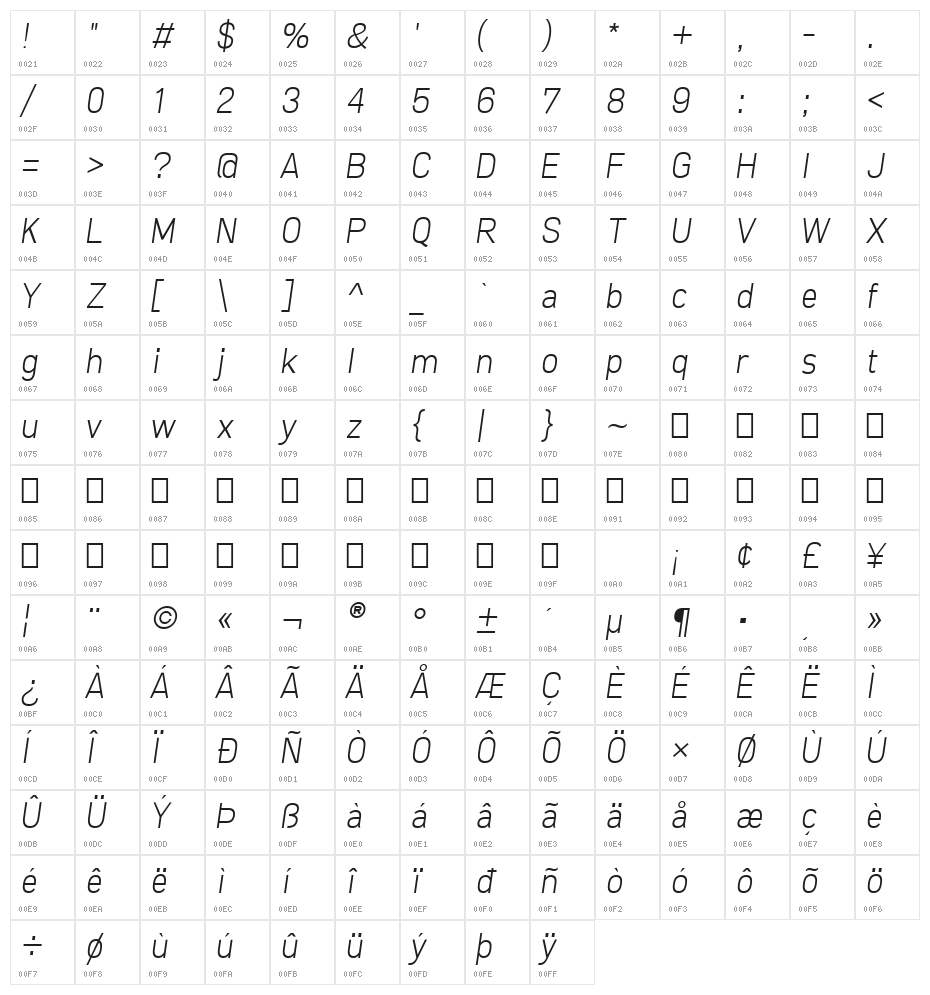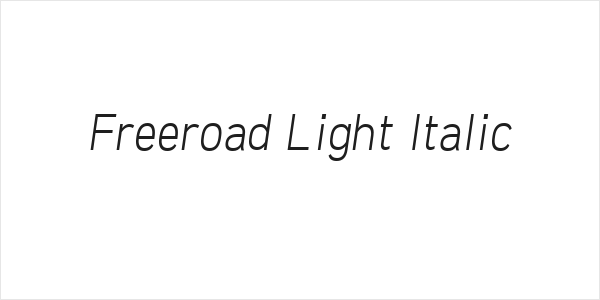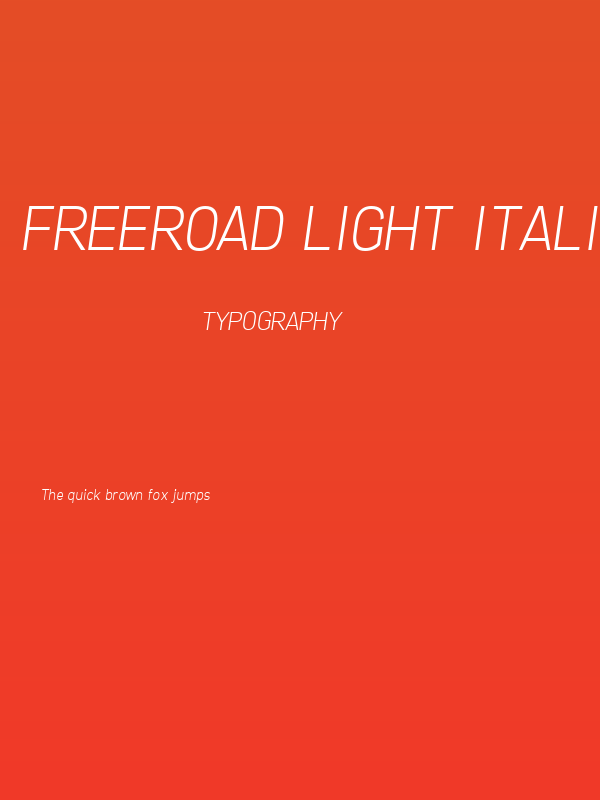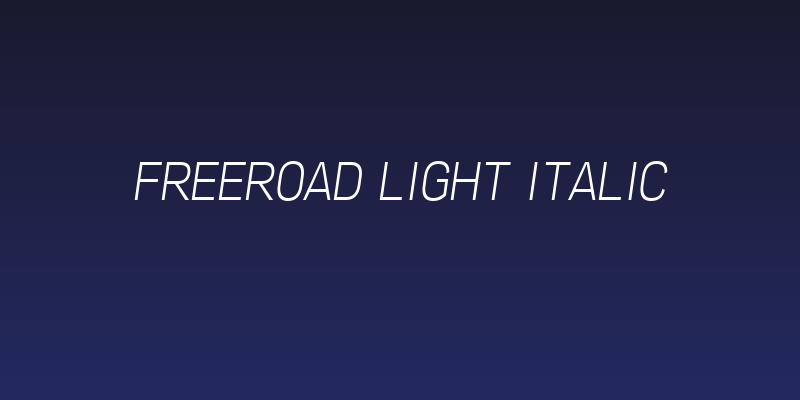
Freeroad Light Italic Font
Freeroad Light Italic Description
This font features a sleek and modern design with a light weight and italic style. The characters are slightly slanted, giving a sense of motion and elegance. The strokes are thin and consistent, providing a clean and airy appearance. The uppercase and lowercase letters are well-proportioned, and the numerals are clear and easy to read. Special characters are included, maintaining the same thin and elegant style. This font is versatile, suitable for various design projects that require a contemporary and sophisticated look.
| Proposed Projects | Ideal for branding, editorial design, fashion magazines, and modern websites. |